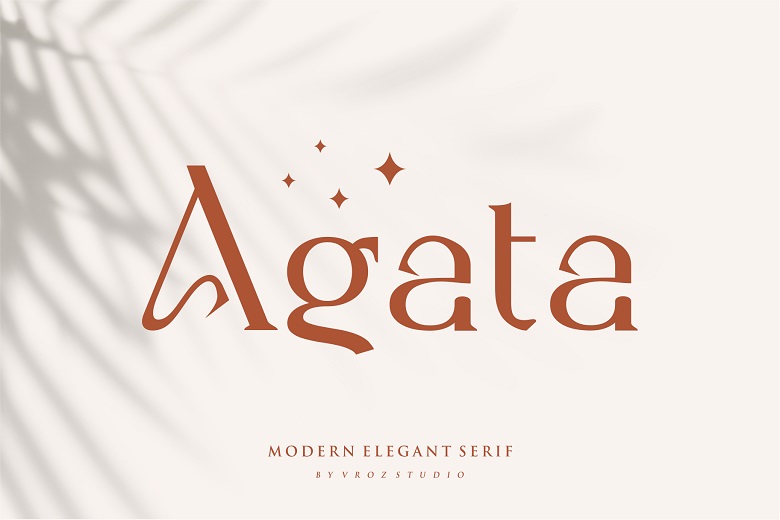
Agata Font
Agata is a clean, simple and assertive serif font. This font is suitable for designs such as t-shirts, sportswear, logos, advertisements, clothing, and more.
Agata Serif Font